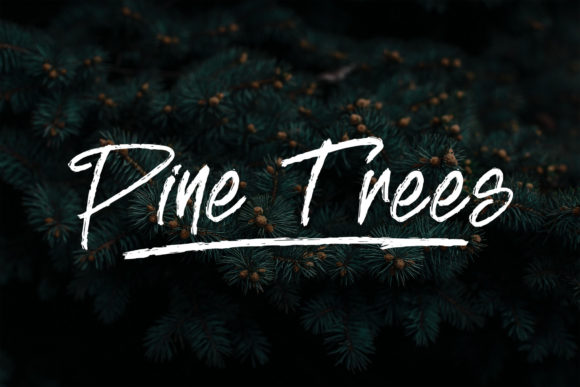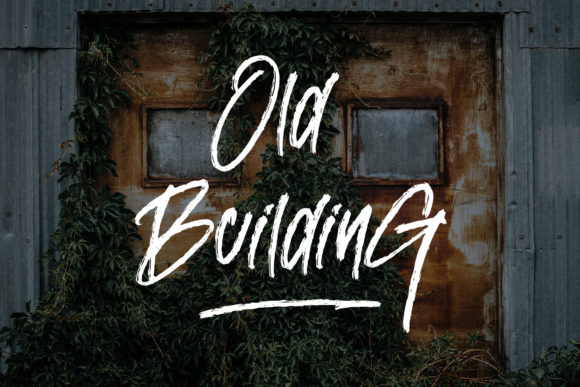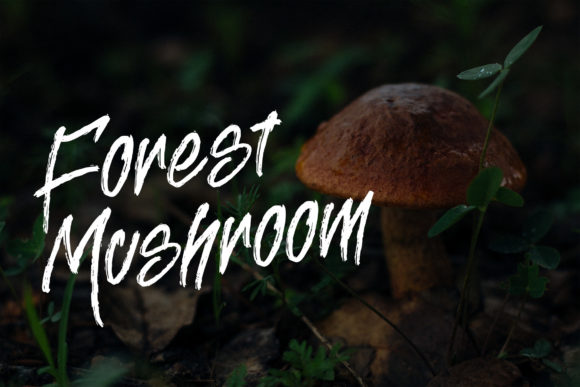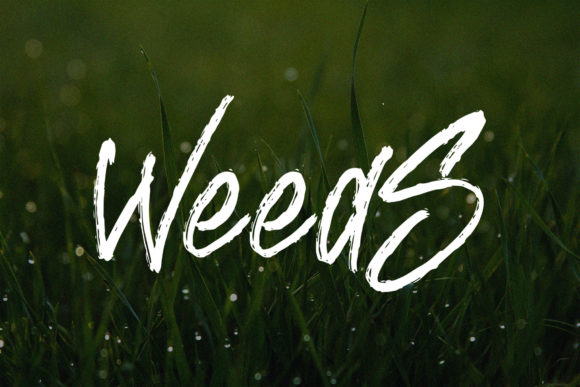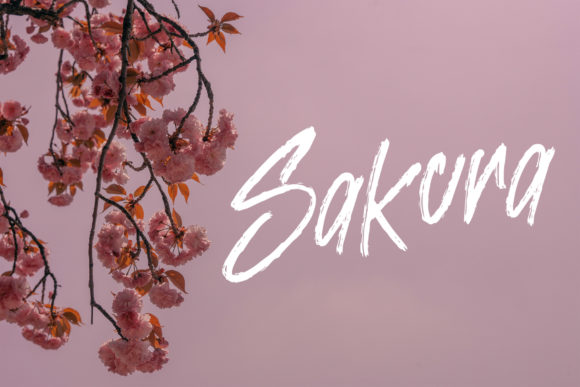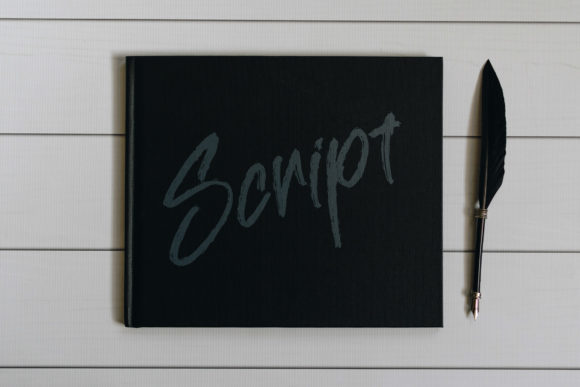
Introduction to Breaking Rule Font
Have you ever found yourself stuck in a creative rut, scrolling through design resources for the perfect font to elevate your next project? You land on a free download that sparks inspiration, but it’s just not quite right. That’s where the Breaking Rule Font comes in – a high-quality, brushed display font that’s perfect for giving your designs a street art vibe.
This versatile font is a valuable asset for designers, suitable for a wide range of creative projects, from t-shirts and sportswear to logos and advertisements. Its unique, edgy style is sure to make your designs stand out, whether you’re working on a commercial project or a personal passion project. With a transparent background, you can easily incorporate it into your design without any distractions.
Key Features of Breaking Rule Font
- Unique, hand-drawn design with a modern twist, perfect for creative projects.
- Breaking Rule Font is a versatile design resource that can be used for a wide range of creative projects, from logos and branding to digital art and more.
Honest Review: Breaking Rule Font
I recently had the chance to work with the Breaking Rule Font, and I must say it’s been a game-changer for my creative projects. This font is a fantastic addition to any designer’s toolkit, offering a unique and eye-catching style that’s perfect for making a statement.
One of the things that stands out about the Breaking Rule Font is its high-quality design. The font is incredibly detailed and well-crafted, with a clear and transparent background that makes it easy to work with. Whether you’re working on a design project for a client or just want to add some personality to your own creative endeavors, this font is sure to impress.
Here are some of the things that work well with the Breaking Rule Font:
- ✨ Unique and eye-catching style that’s perfect for making a statement
- ✨ High-quality design with clear and transparent background
- ✨ Perfect for creative projects, including logos, branding, and more
As with any font, there are some limitations to be aware of. For example:
- ⚠️ Some users may find the font to be too bold or overpowering
- ⚠️ The font may not be suitable for all types of projects or designs
Overall, I’m really impressed with the Breaking Rule Font. It’s a fantastic design resource that’s perfect for anyone looking to add some personality to their creative projects. And the best part? It’s available for free download, making it an accessible option for designers of all levels.
Breaking Rule Font
Breaking Rule Font is a unique and stylish design resource ideal for creative projects. This high-quality font is available for free download, offering a transparent background that allows for seamless integration into various design platforms.
Tips for Getting the Most Out of Breaking Rule Font
Experiment with different font sizes, colors, and styles to achieve the desired look. You can also combine Breaking Rule Font with other design elements to create a unique visual effect.
Breaking Rule Font is suitable for a variety of creative projects, including:
- Social media graphics and advertising
- Poster and flyer design
- Document and presentation design
Alternatives to Breaking Rule Font